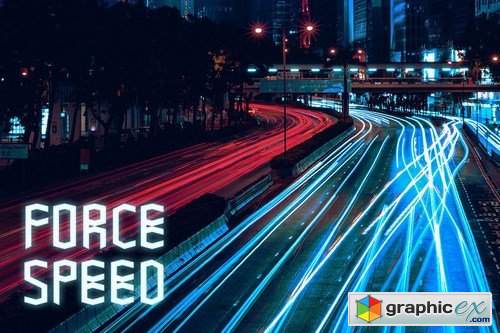
Kogapunk - Typeface
Kogapunk - Typeface. Its a handmade font with scifi, futuristic look. It’s a great font for game, album cover, logo, branding, magazine, social media, & advertisements, but also works great for other projects.